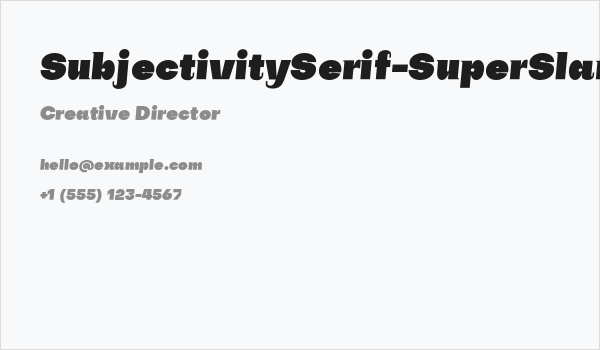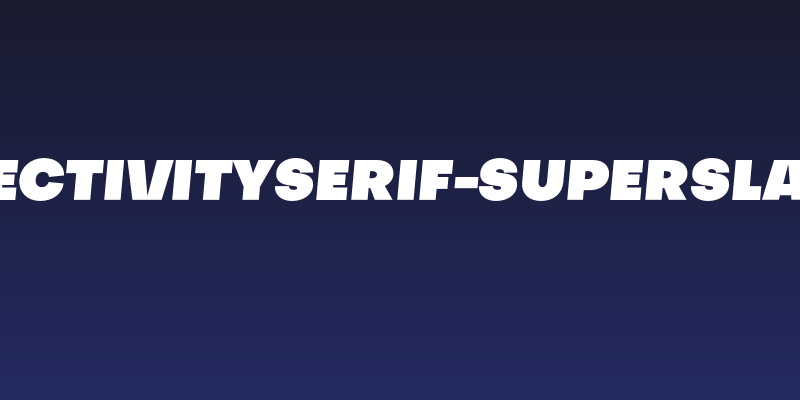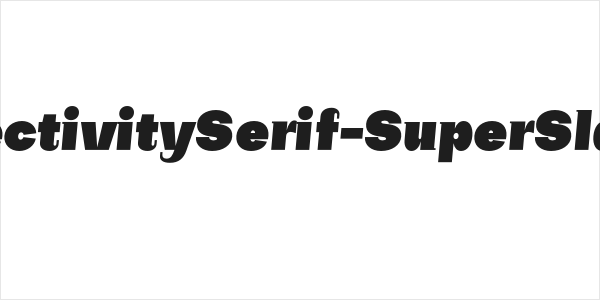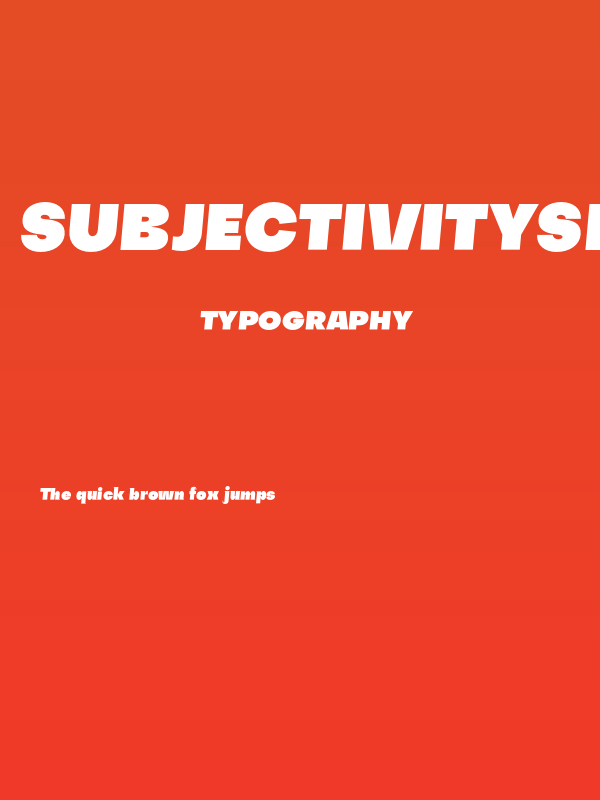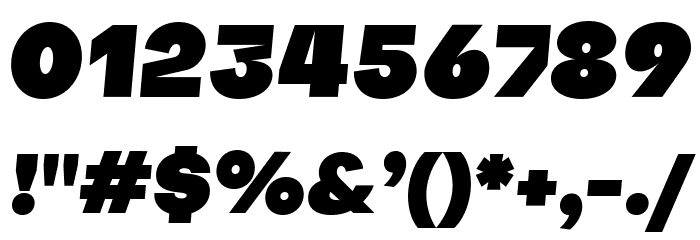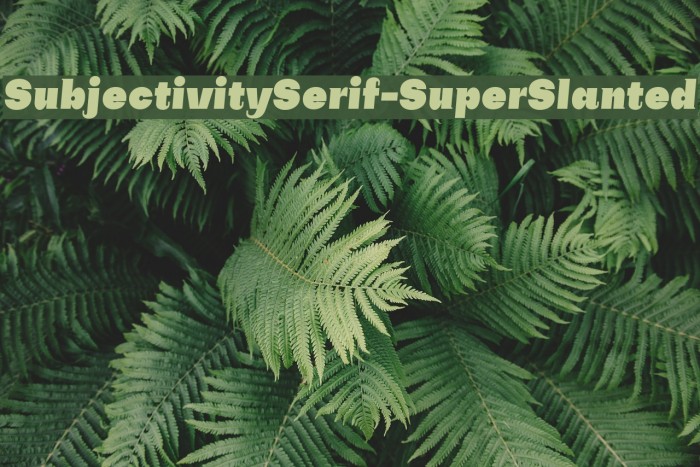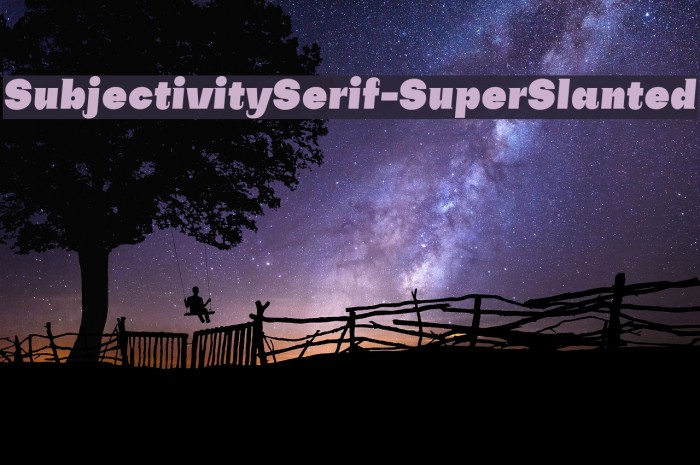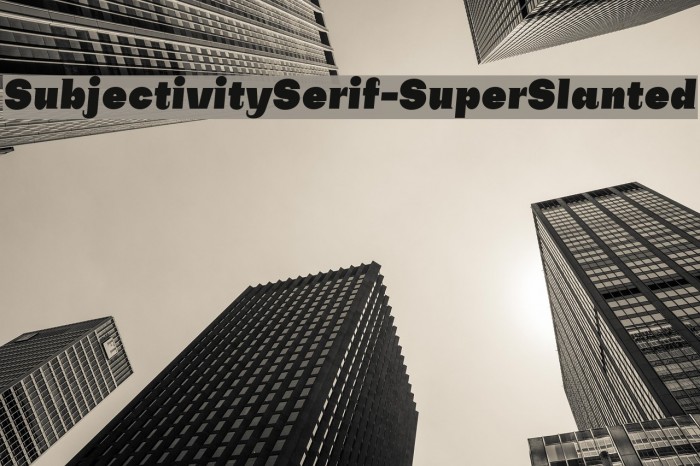
SubjectivitySerif-SuperSlanted Font
SubjectivitySerif-SuperSlanted Description
This font features a bold and dynamic style with a pronounced slant, giving it a sense of movement and energy. The characters are thick and robust, with a strong presence that commands attention. The uppercase and lowercase letters maintain a consistent weight, enhancing readability while still offering a unique flair. The numbers and special characters are equally bold, ensuring they stand out in any context. The overall design is modern and impactful, making it suitable for projects that require a strong visual statement.
| Proposed Projects | Ideal for headlines, posters, branding materials, and any design that requires a strong, eye-catching font. |